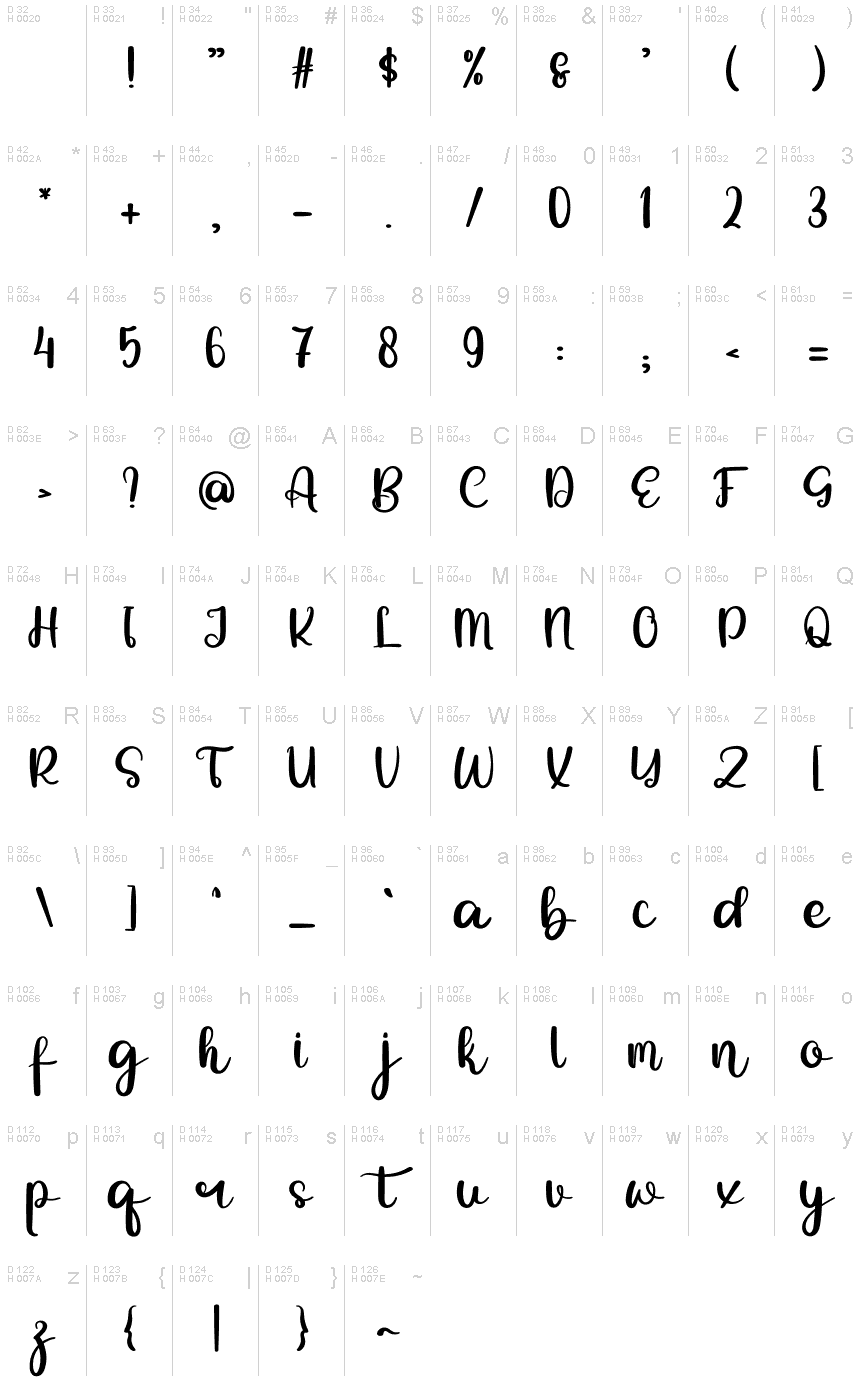
Kitchen Counter
Kitchen Counter, designed by Inermedia Studio, is a charming handwritten font perfect for all sorts of creative projects. Use it for greeting cards, invitations, logos, branding materials and more!